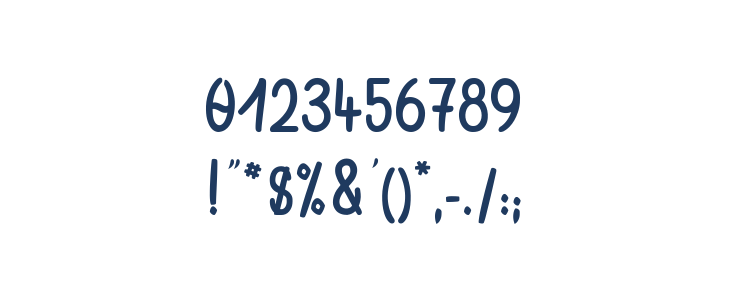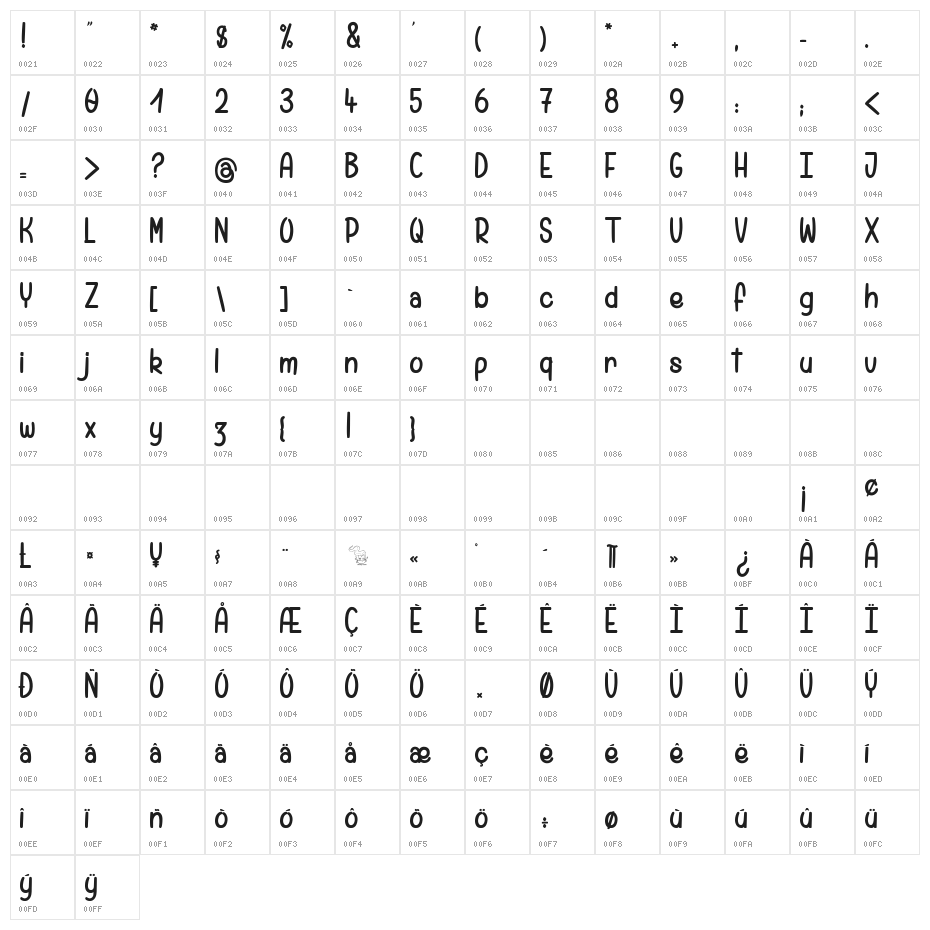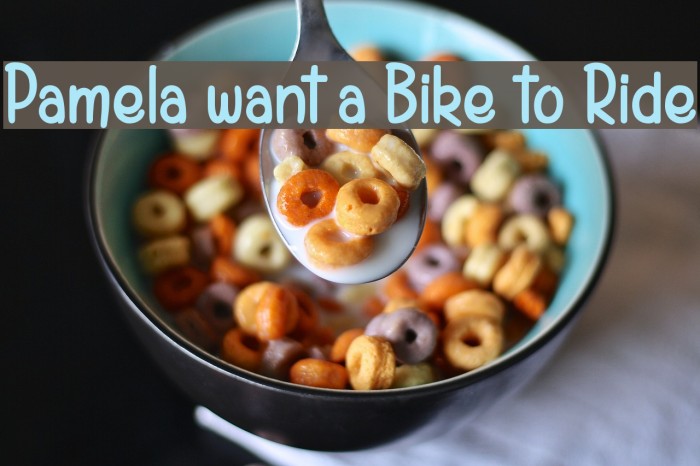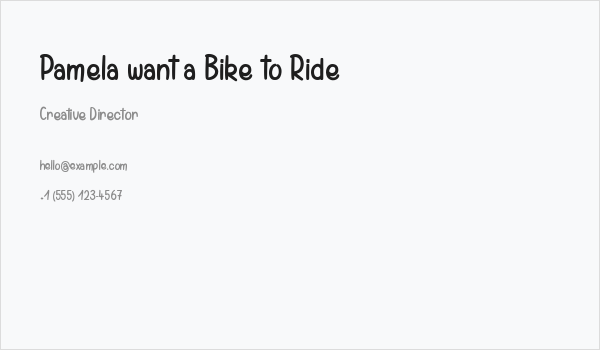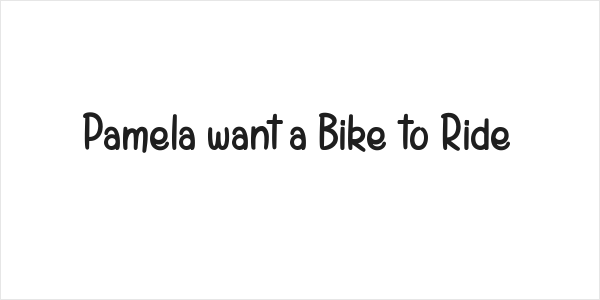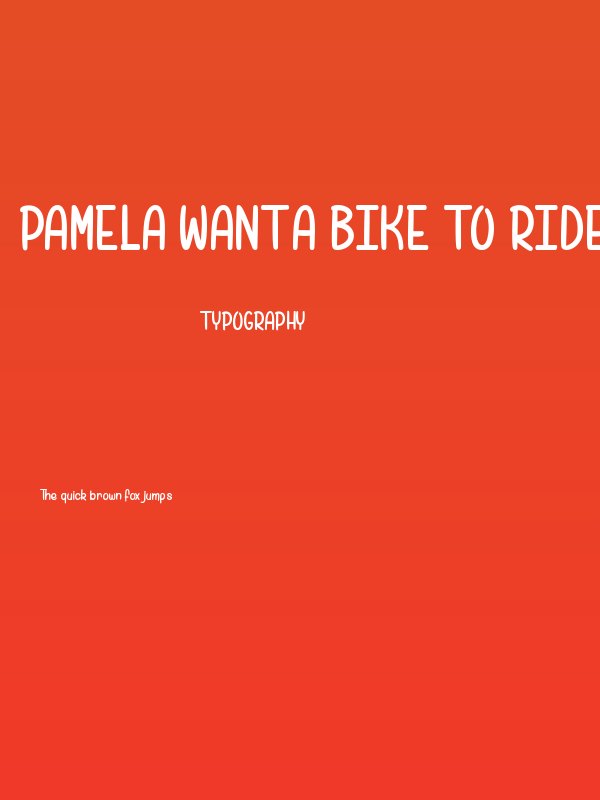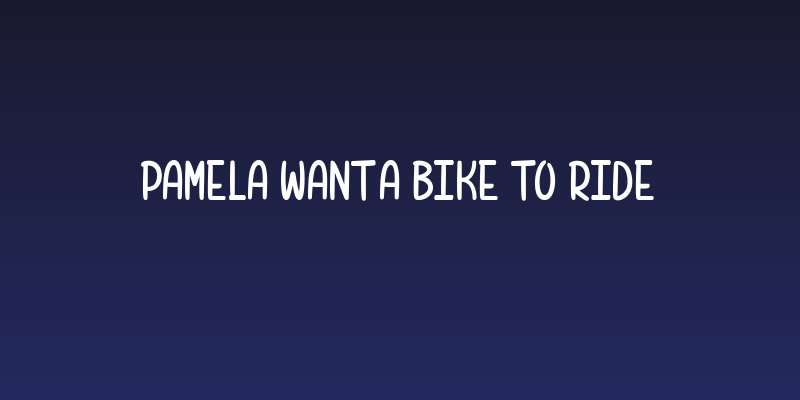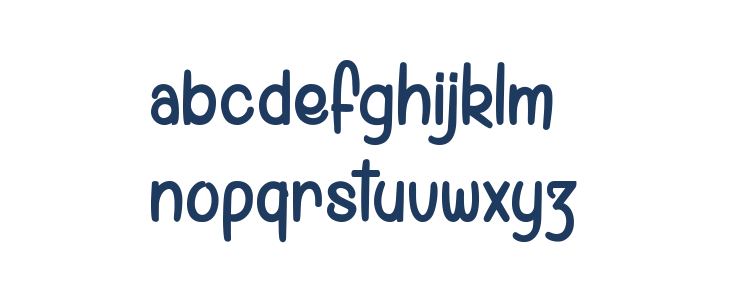
Pamela want a Bike to Ride Font
Pamela want a Bike to Ride Description
This font features a playful and rounded style, characterized by its smooth curves and friendly appearance. The letters are bold and slightly condensed, giving it a compact yet approachable look. The uppercase and lowercase letters maintain a consistent style, with rounded edges and a uniform stroke width. The numerals and special characters follow the same design principles, ensuring a cohesive appearance across all glyphs. This font's design is reminiscent of handwritten text, adding a personal and informal touch to any project.
| Use Case | Headlines, Logos, Casual Text |
| Proposed Projects | Ideal for children's books, playful branding, casual invitations, and social media graphics. |